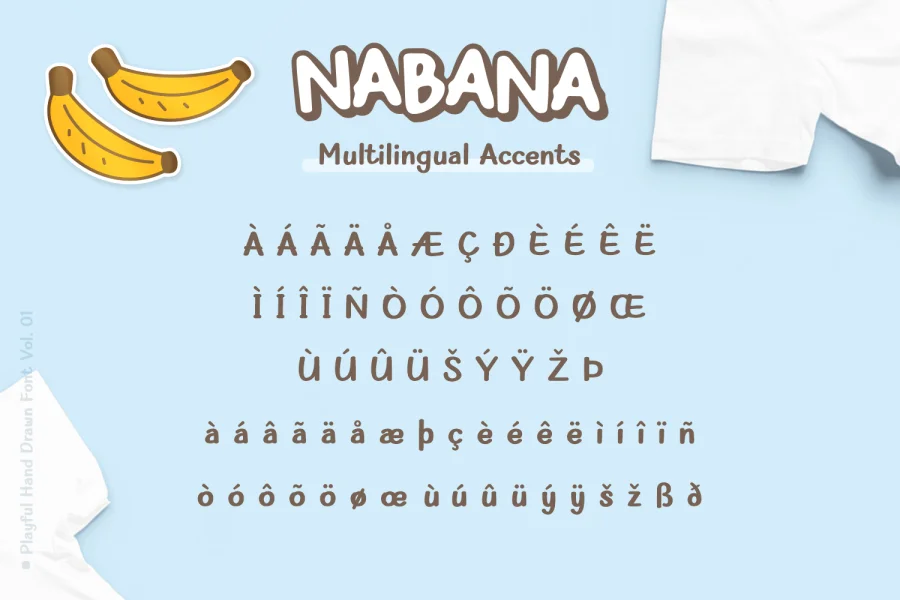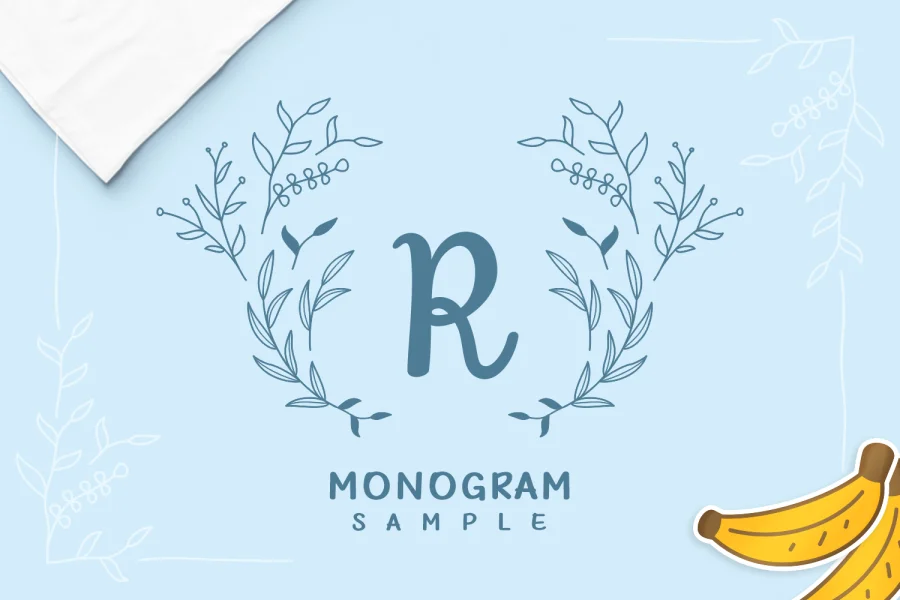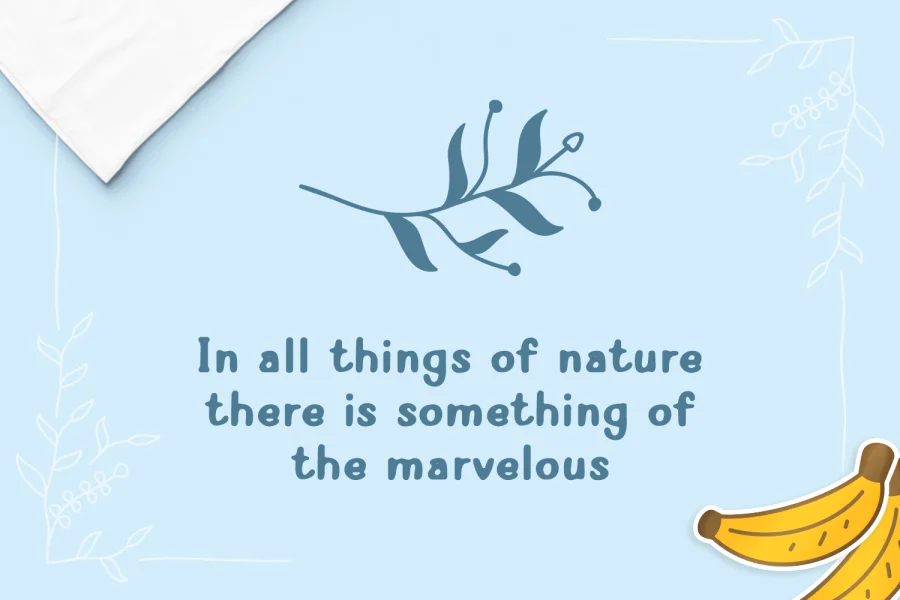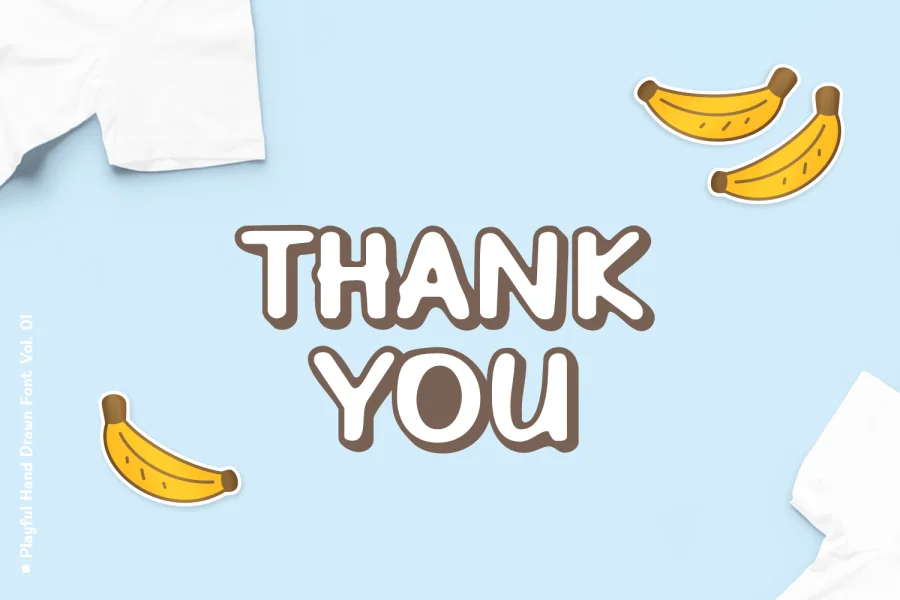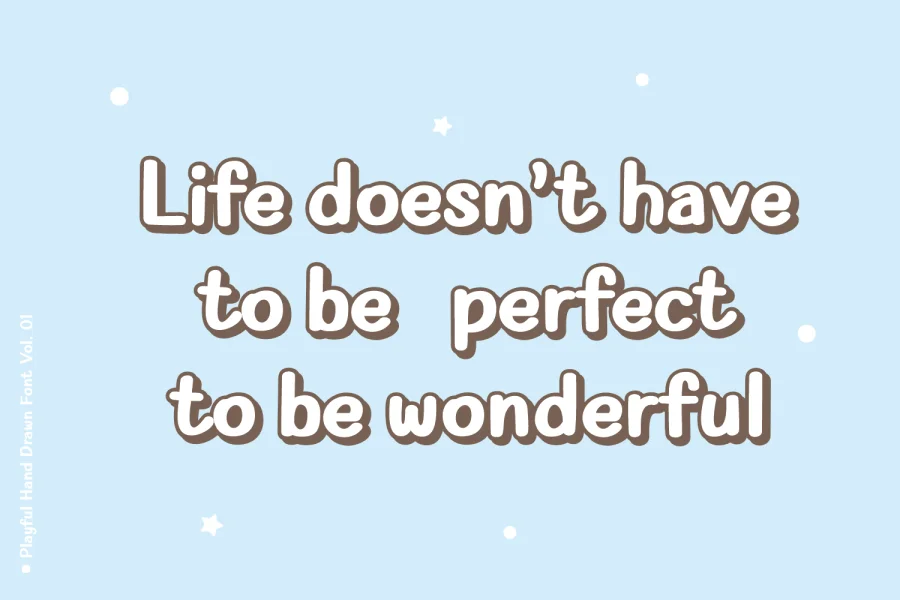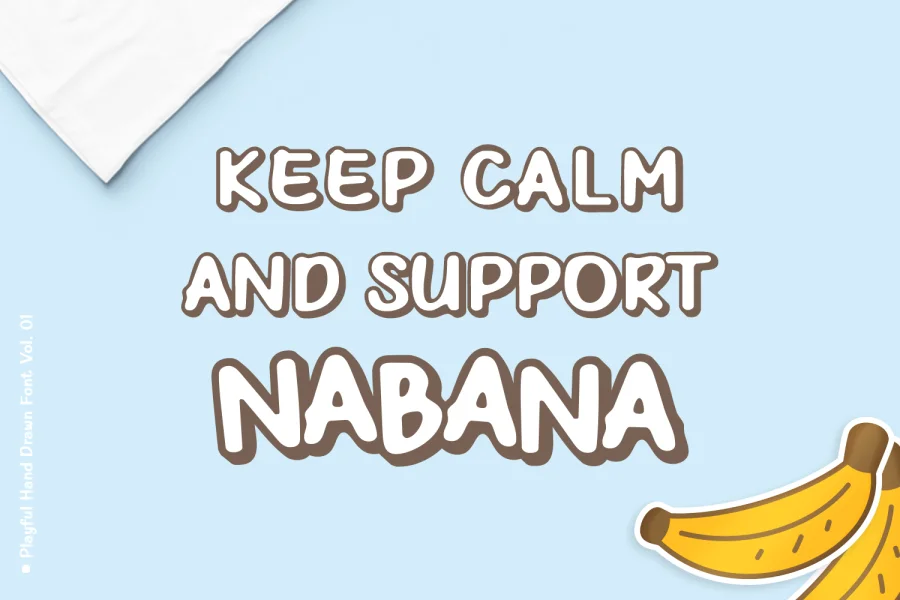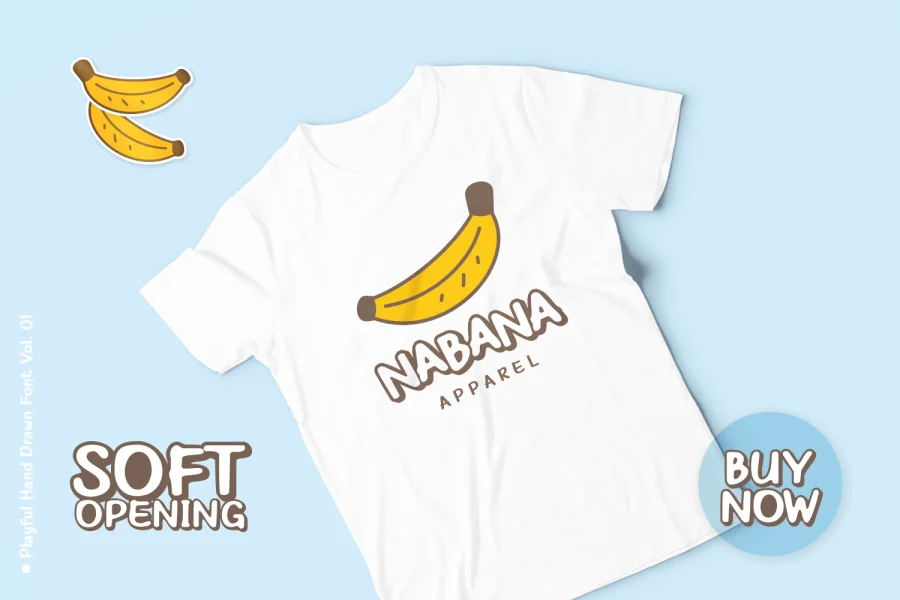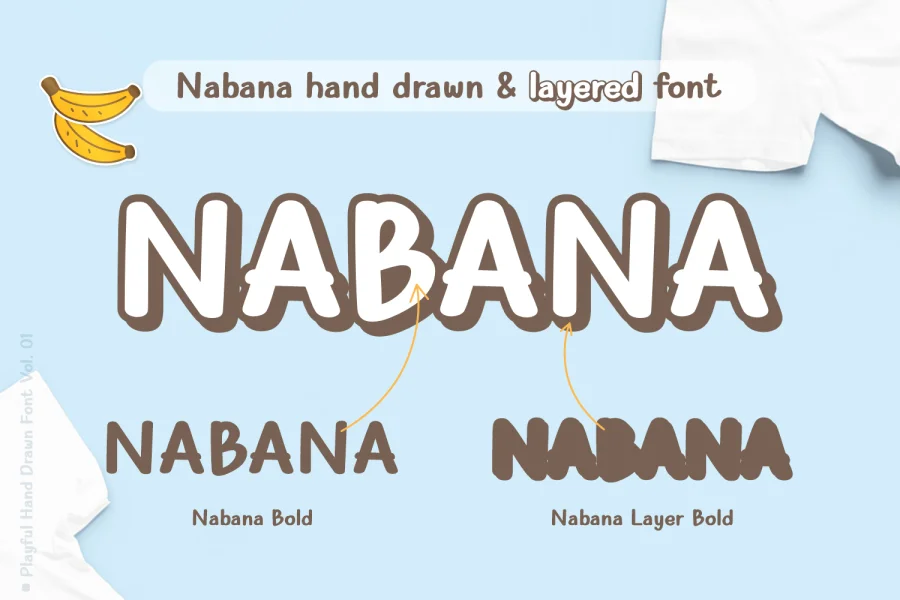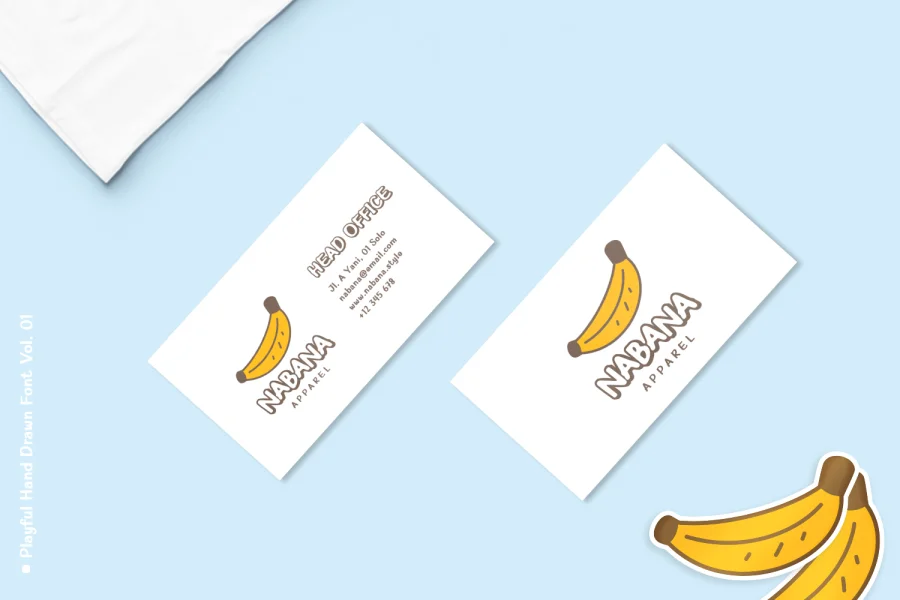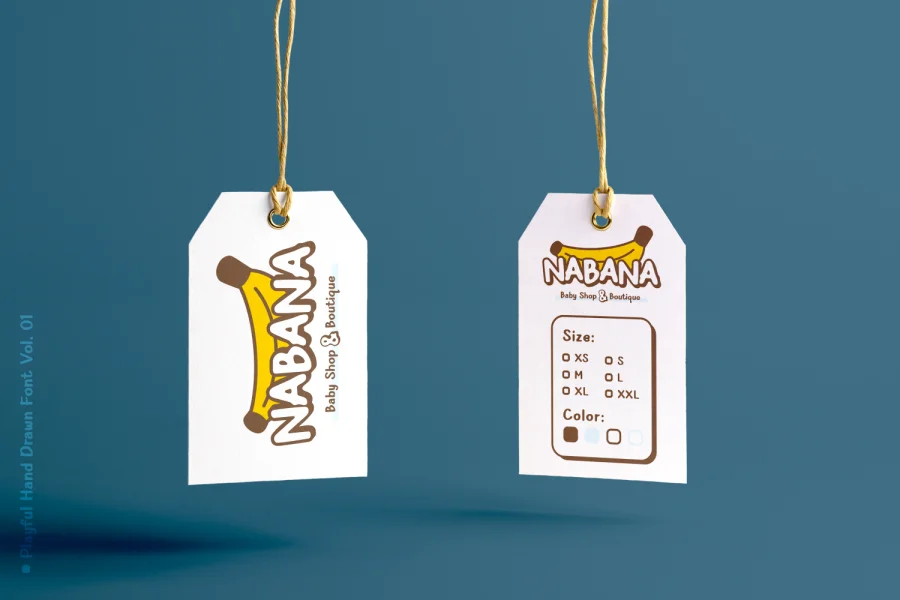
Nabana is a quotable sans serif font that offers a relaxed, comfortable and informal feel. This font is inspired by the packaging of environmentally friendly products, as well as from book covers for children.
The first impression when you see this font is a sense of joy and fun. Moreover, this font package also includes a variety of floral element designs that are very harmonious when used together.
Nabana is also a layered font, and there are even other styles available such as outline and shadow styles. If calculated from the total, including regular, italic, bold and bold italic, then Nabana font has a total of 32 fonts in the complete family package.
Nabana font is a type of font that is suitable for informal designs, craft, packaging, eco friendly product, for business related to children, books and children's education or all things related to mother and baby.
Nabana is a sweet and friendly handwritten font. Its natural and unique style makes it incredibly fitting to a large pool of designs.
- Nabana Layer Regular should be paired only with Nabana regular
- Nabana Layer Blur Regular should be paired only with Nabana Blur regular
- Nabana Layer Bold should be paired only with Nabana Bold
- Nabana Layer Blur Bold should be paired only with Nabana Blur Bold